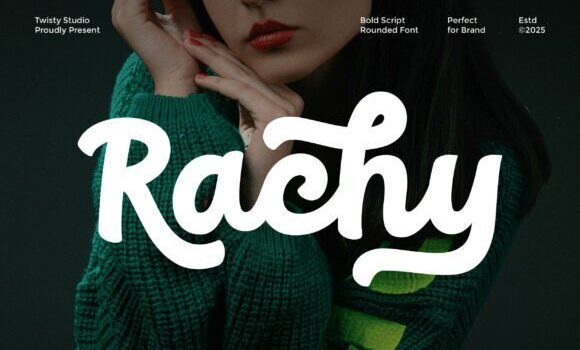
Rachy Font – Free Download Introduction to Rachy Font Rachy is a bold script font designed to deliver a strong, smooth, and confident handwritten feel. 📸 Preview Gallery 6 images 📌 Product Name Rachy Font 👤 Author Twistystd 📂 Category